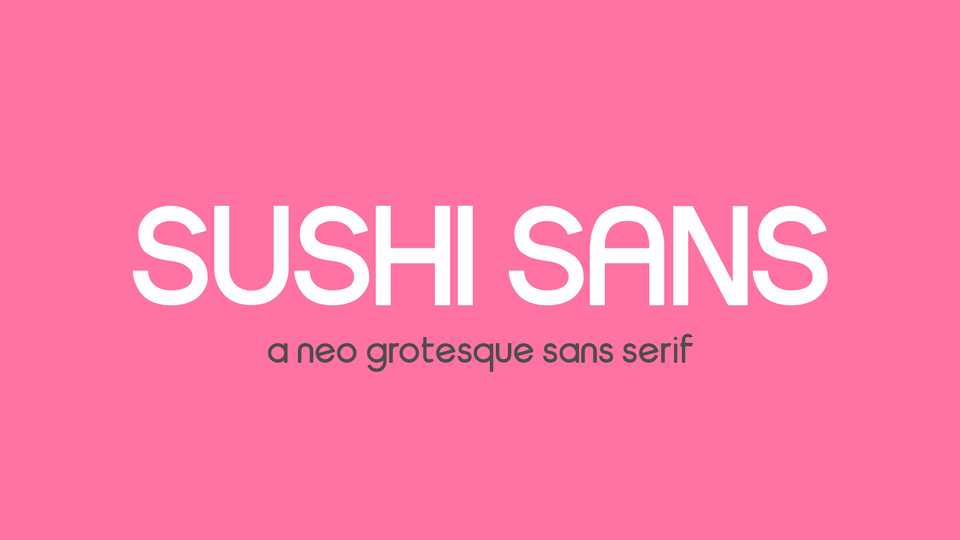
Download Sushi Sans font, a neo-grotesque sans serif display typeface designed to represent Sushi Squad 7461. Works best for posters, headlines and short text blocks.
Designer: Sushi Squad 7461